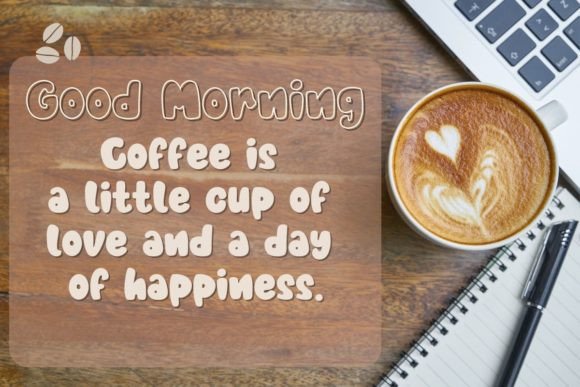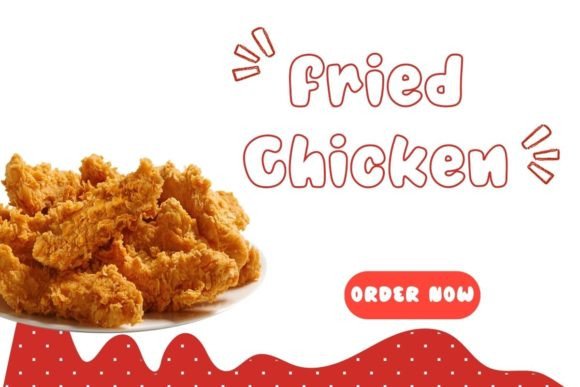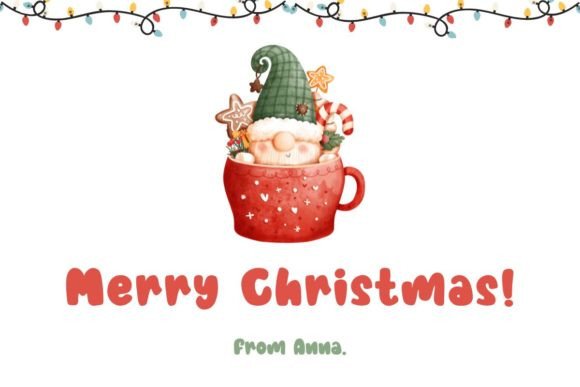
Introduction to Golden Time Font
Golden Time is a cute and fun display font.
With its casual charm, this font is perfect for a wide pool of design ideas No matter the topic, this font will be an incredible asset to your fonts’ library, as it has the potential to elevate any creation.